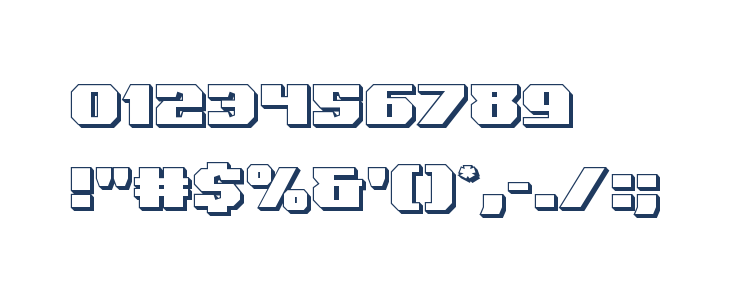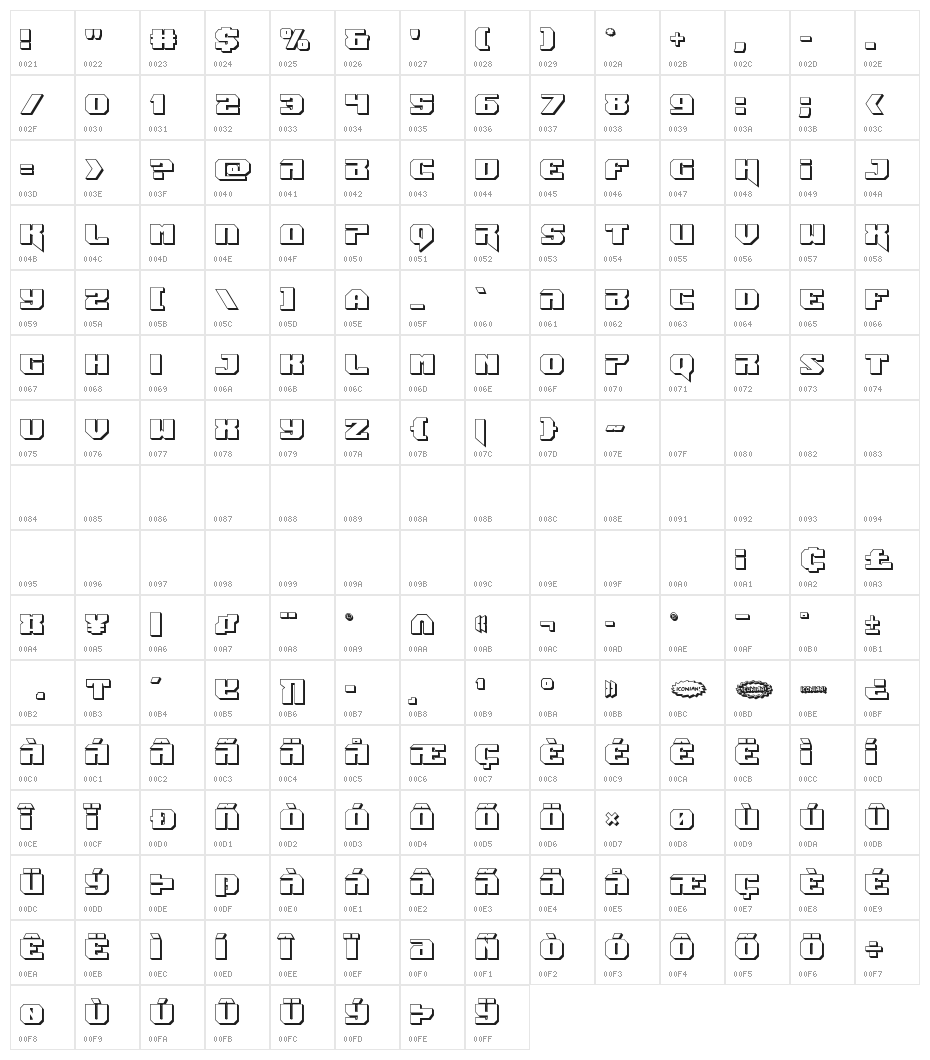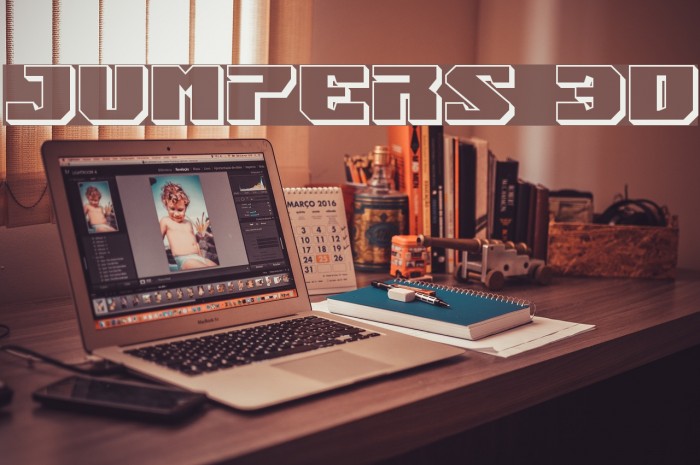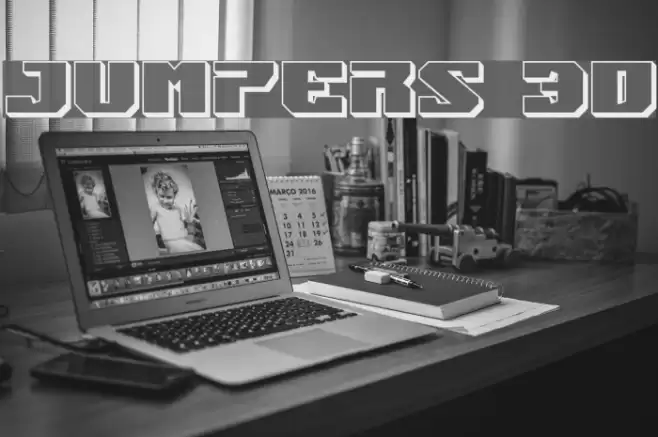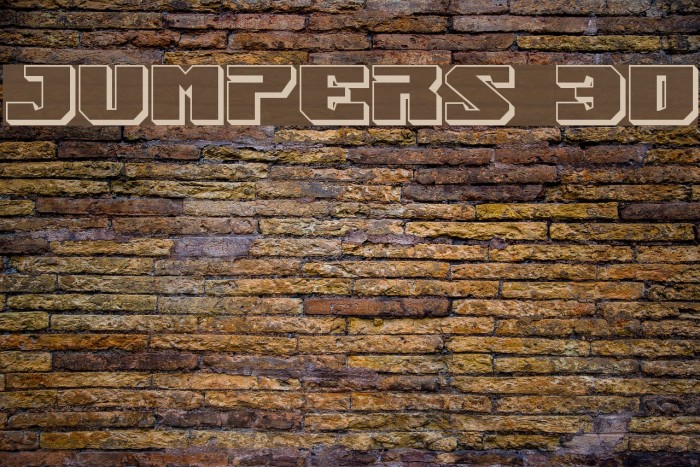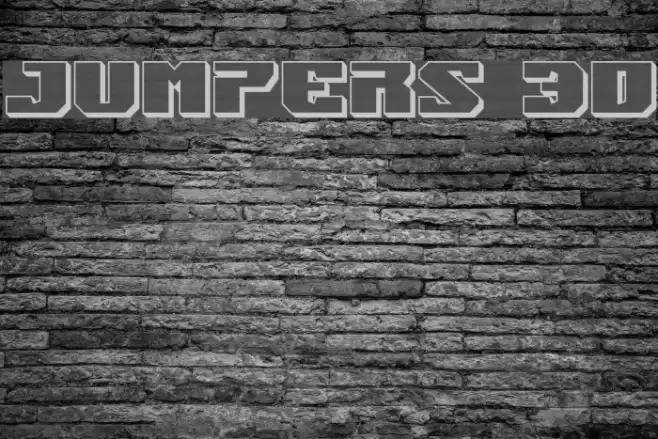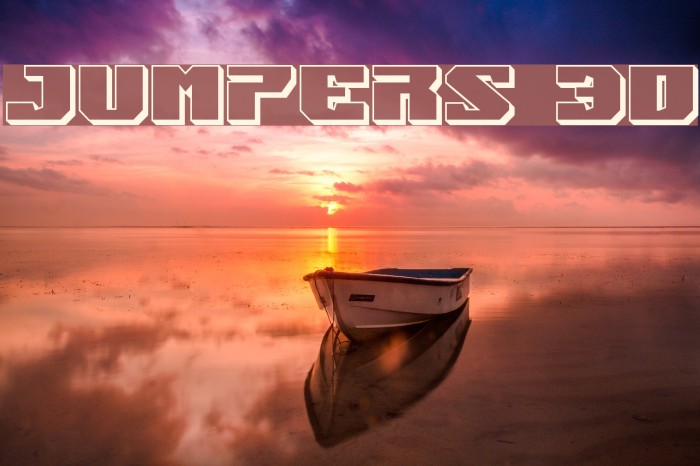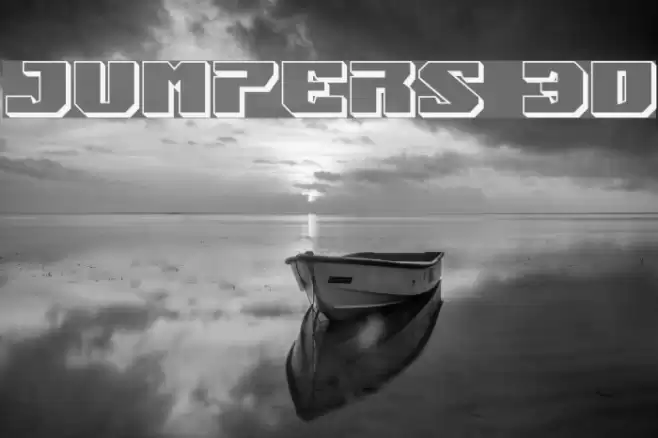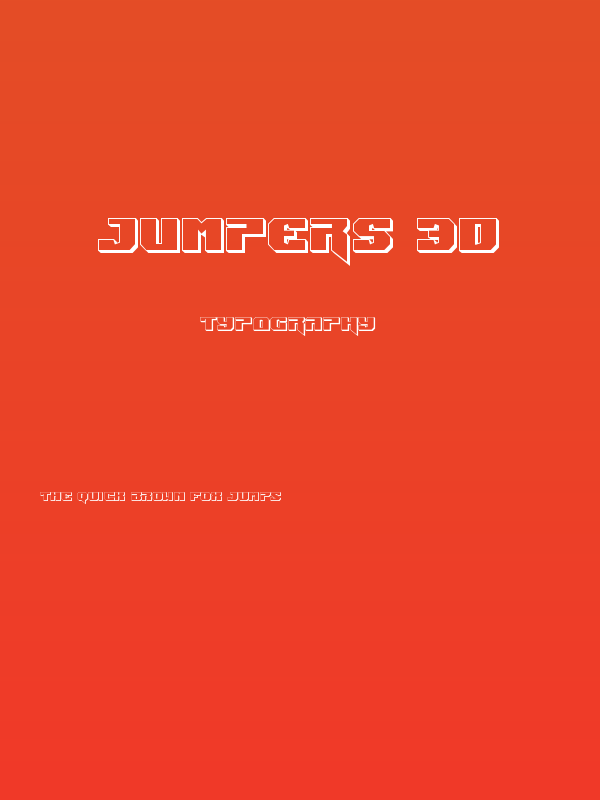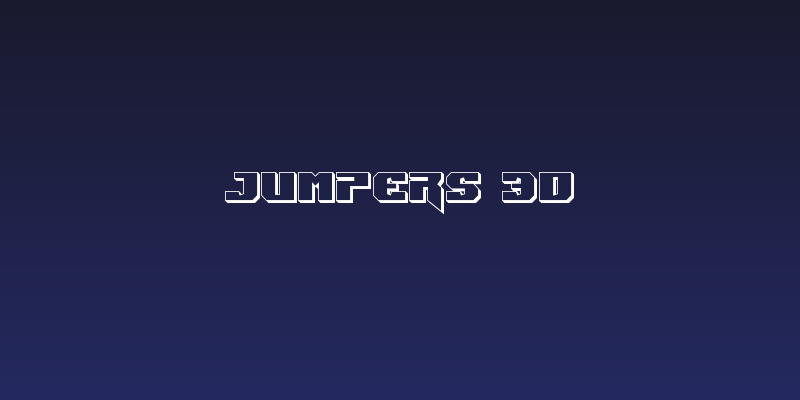
Jumpers 3D Font
Jumpers 3D Description
This font features a bold, three-dimensional design with a strong geometric influence. The characters are blocky and angular, with a distinct shadow effect that gives them a raised appearance. The uppercase and lowercase letters maintain a consistent style, emphasizing sharp edges and a futuristic aesthetic. Numbers and special characters follow the same design principles, ensuring uniformity across all glyphs. The font's unique style makes it stand out, ideal for projects that require a modern and impactful look.
| Proposed Projects | Perfect for video game titles, sci-fi movie posters, tech branding, and any project needing a modern, standout typeface. |